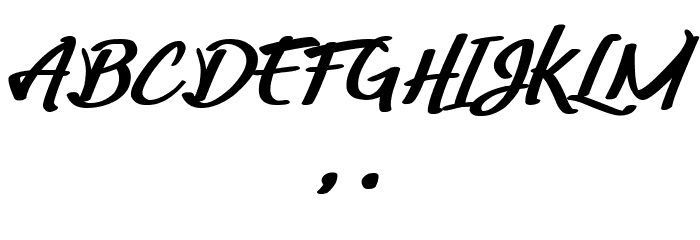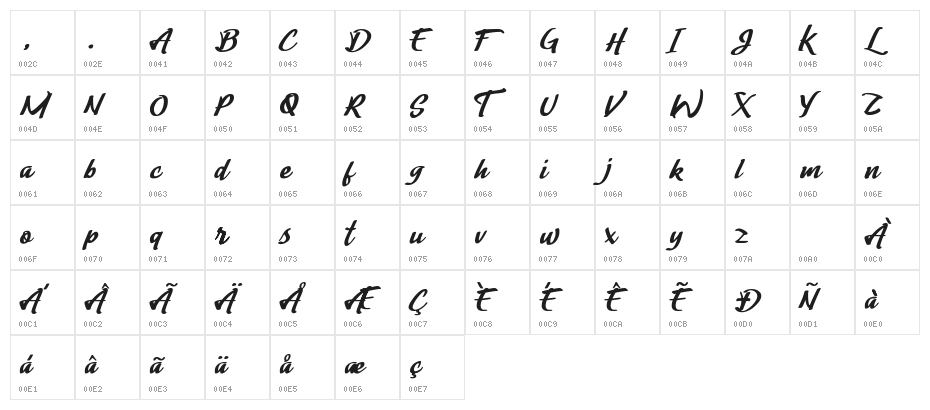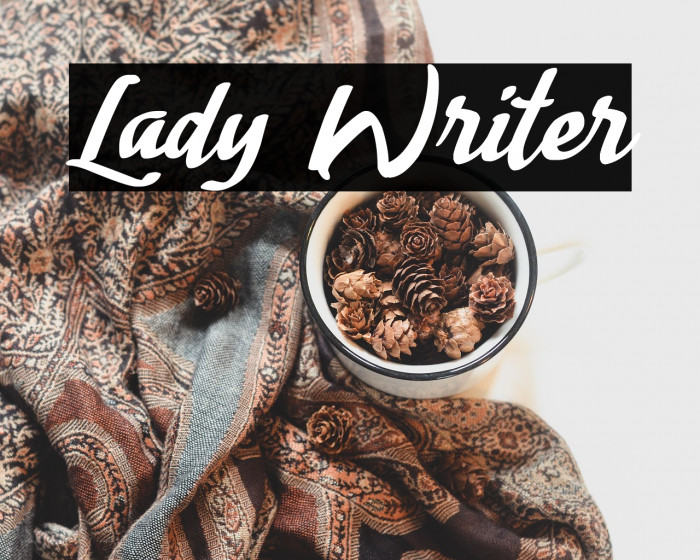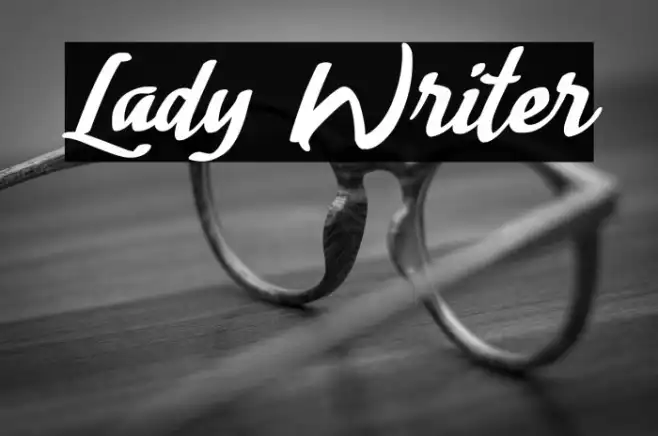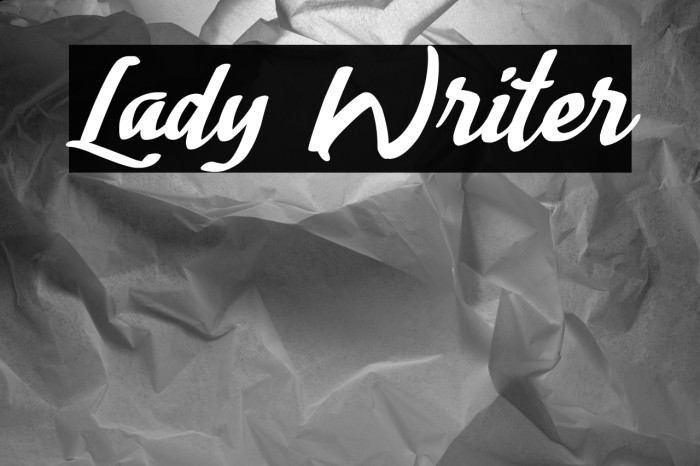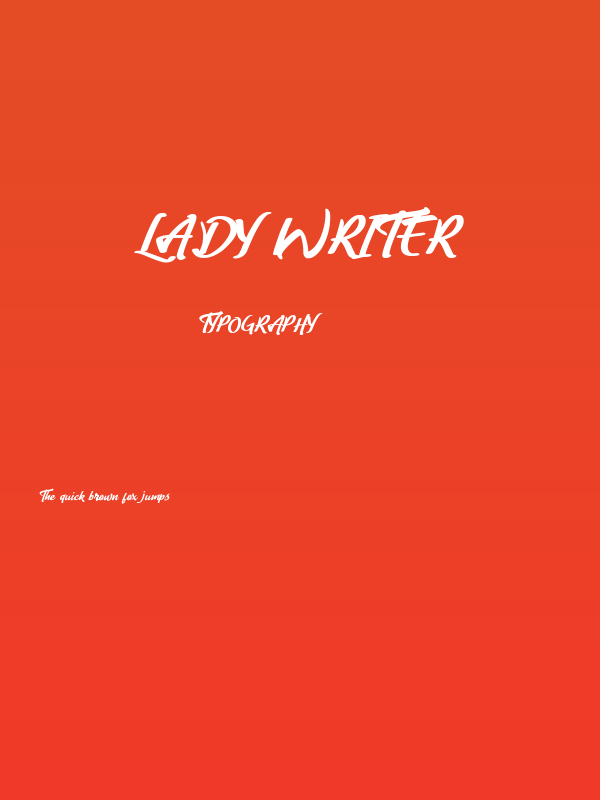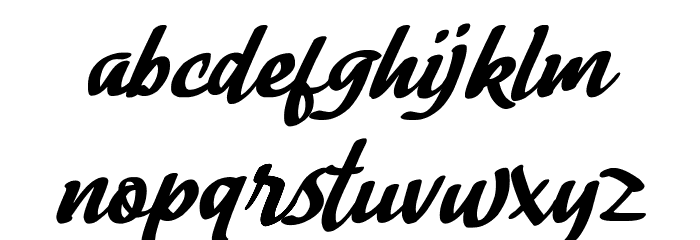
Lady Writer Font
Lady Writer Description
This font exudes a dynamic and expressive style, characterized by its flowing, cursive script that mimics the fluidity of handwriting. The letters are interconnected with smooth, sweeping strokes, giving it an elegant and personal touch. The uppercase letters are bold and prominent, while the lowercase letters maintain a consistent flow, enhancing readability. The overall appearance is both artistic and sophisticated, making it suitable for creative and formal applications. The font's design is reminiscent of classic calligraphy, yet it maintains a modern edge with its clean lines and balanced proportions.
| Proposed Projects | Ideal for wedding invitations, greeting cards, logos, and branding materials that require a personal and artistic touch. |